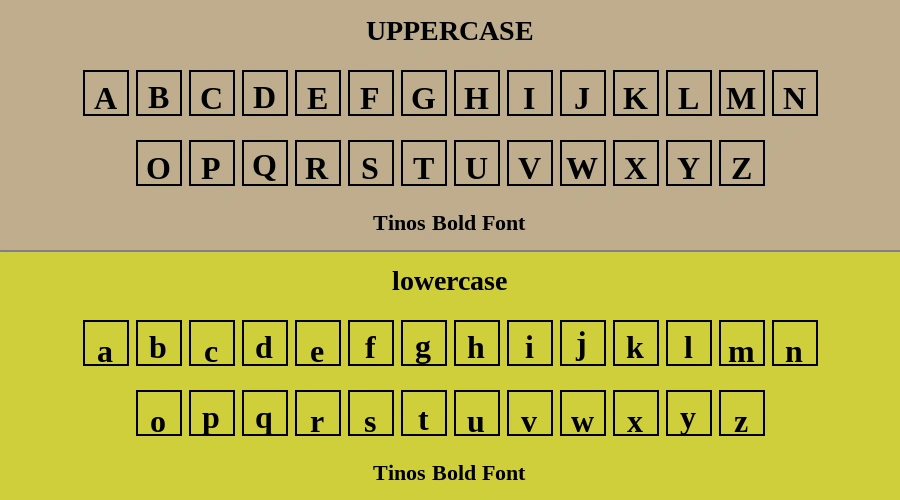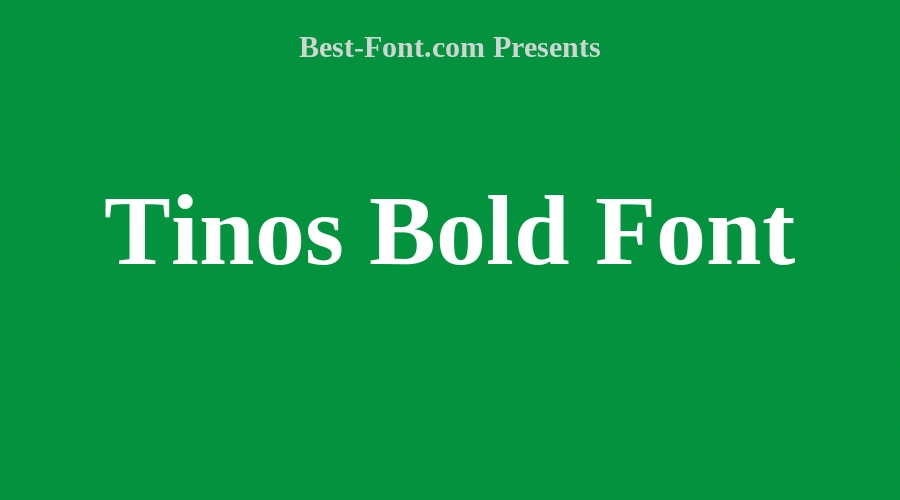
About Tinos Bold Font
Designed with precision, Tinos Bold Font merges fluid motion with technical accuracy in every character. This versatility makes it particularly effective for newspaper text, where refinement and practical utility directly impact communication quality. Each letterform demonstrates meticulous craftsmanship.
Technical excellence shines through elements like strong contrast and multiple weights, enhancing typographic versatility. In image captions settings, Tinos Bold Font proves its worth through superior brand recognition. The thoughtful execution of bowl shape and artistic merit ensures professional results.
Tinos Bold Font |